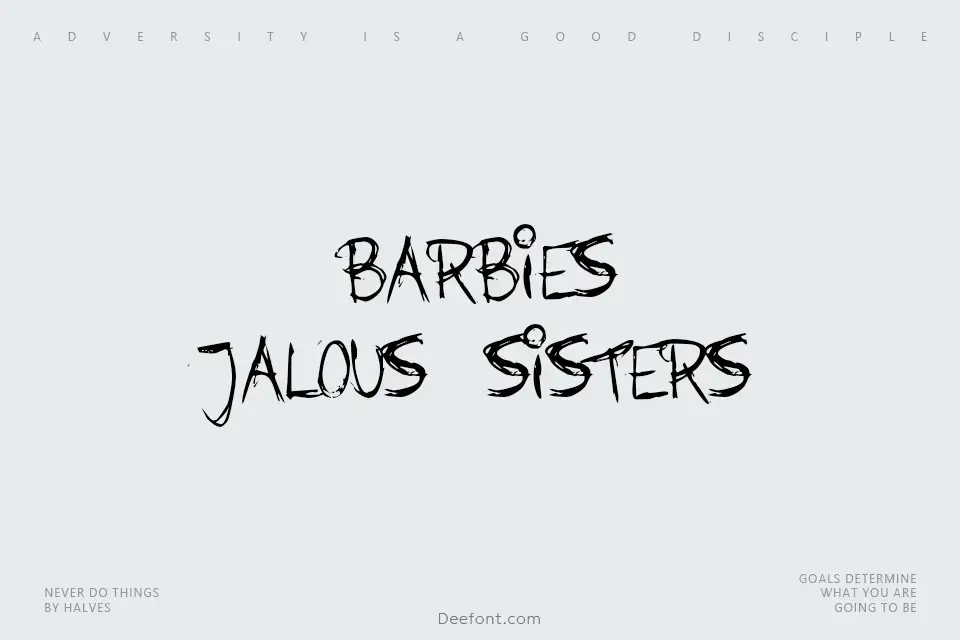
Barbies Jalous Sisters Font
Barbies Jalous Sisters is a distinctive handwritten display font that captures youthful rebellion and carefree energy through its uneven, hand-drawn letterforms. The font features playful, elongated characters with a slightly chaotic yet utterly charming appearance, making it ideal for creating impactful posters, party invitations, social media graphics, and playful headline text. With Scandinavian and German character support, this typeface adds personality and whimsy to designs requiring a touch of sassy, rebellious flair. Perfect for projects targeting creative audiences, birthday celebrations, and casual branding applications.